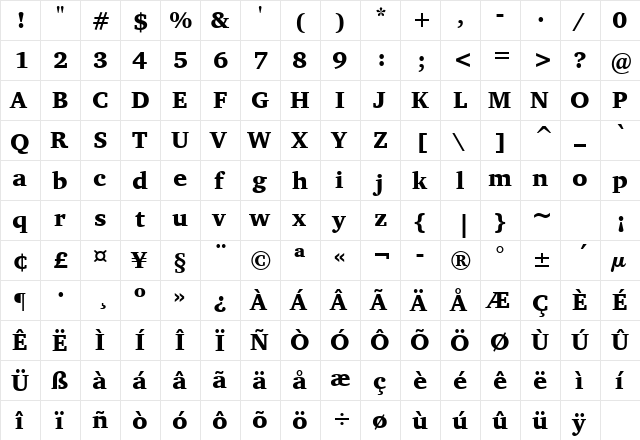
Charter ITC GX Black
Design Context for Charter ITC GX Typeface
Charter ITC GX is a composed and adaptable typeface that performs quietly and consistently across a wide range of design contexts.